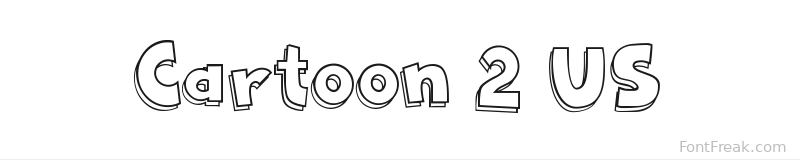
Cartoon 2 US
The Cartoon 2 US font by Galdino Otten Fonts is a delightful display typeface that embodies a playful and whimsical aesthetic. Released in 2013, this font stands out for its cartoonish style, making it an ideal choice for creative projects that require a lighthearted touch. The font features bold, rounded letters with a consistent stroke weight, offering a friendly and approachable vibe. Its clean lines and ample spacing contribute to excellent readability, while the absence of sharp angles enhances its playful character.
This font is particularly suited for a variety of applications. It shines in contexts like children's book covers, where its cheerful design can captivate young readers. It's also perfect for movie posters aimed at family-friendly films, where the playful nature of the lettering can evoke excitement. Additionally, Cartoon 2 US works wonderfully for restaurant menus that target a casual dining experience, helping to communicate a fun and inviting atmosphere. Graphic designers and content creators will find it invaluable for social media graphics, where eye-catching visuals are essential to engage audiences.
Targeted towards graphic designers, small business owners, and content creators, the Cartoon 2 US font offers versatility and charm. It enables users to inject personality into their projects without overwhelming the audience. The cartoonish flair invites creativity, making it an excellent choice for anyone looking to make a statement.
What makes the Cartoon 2 US font truly stand out is its ability to blend simplicity with a sense of fun. Its unique character brings a joyful essence to any design, making it a must-have for those who want to create memorable and visually appealing content. Don’t miss the chance to explore the Cartoon 2 US font free download and bring a splash of creativity to your next project.